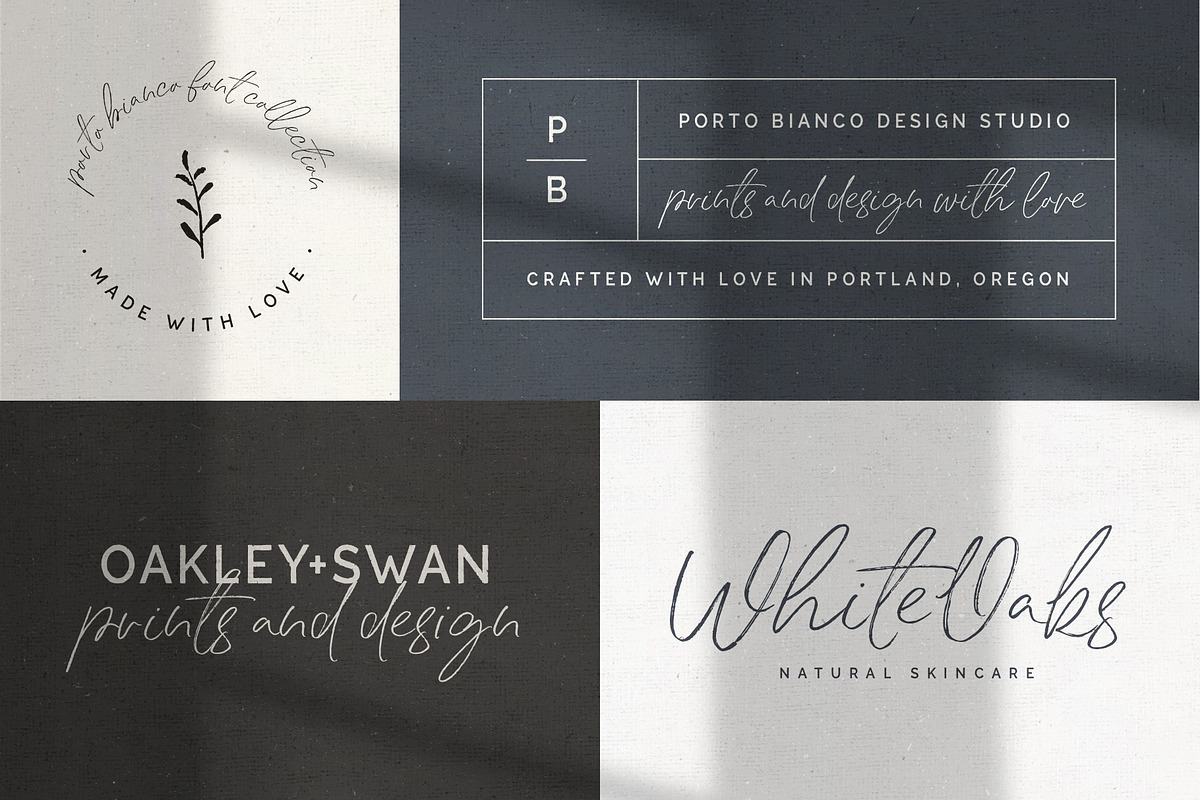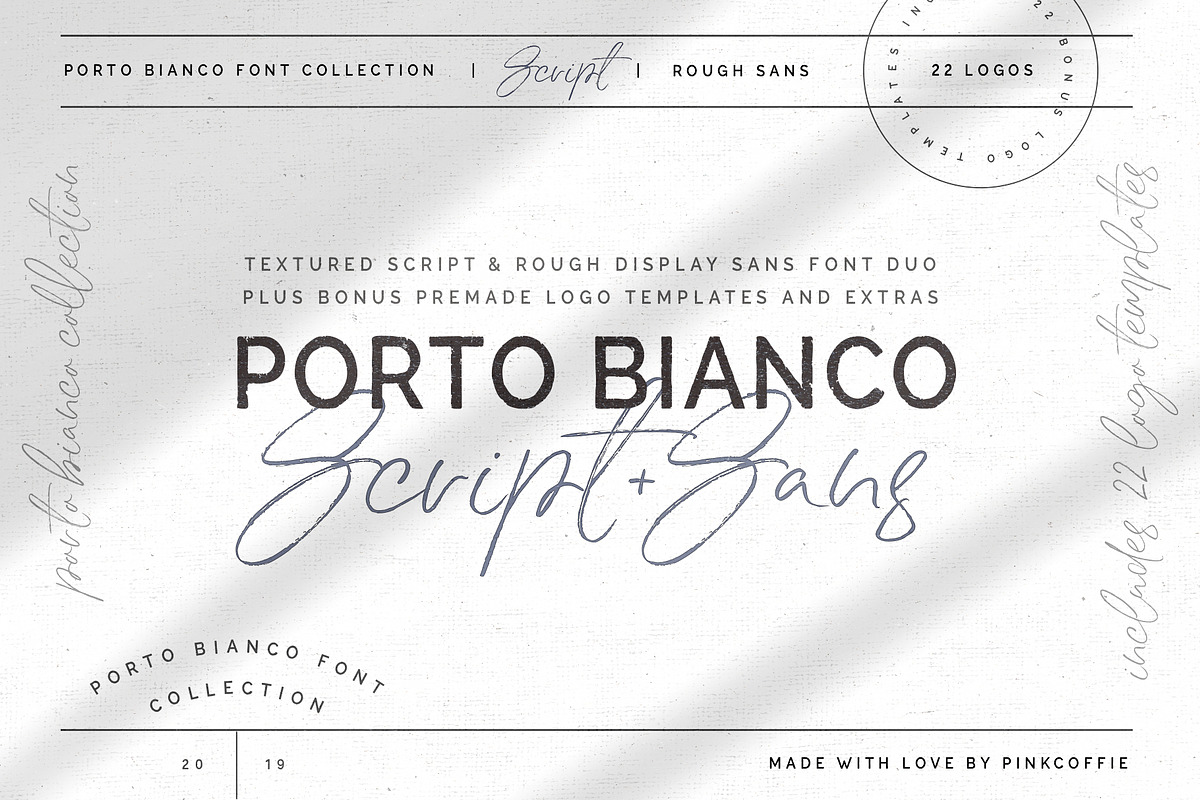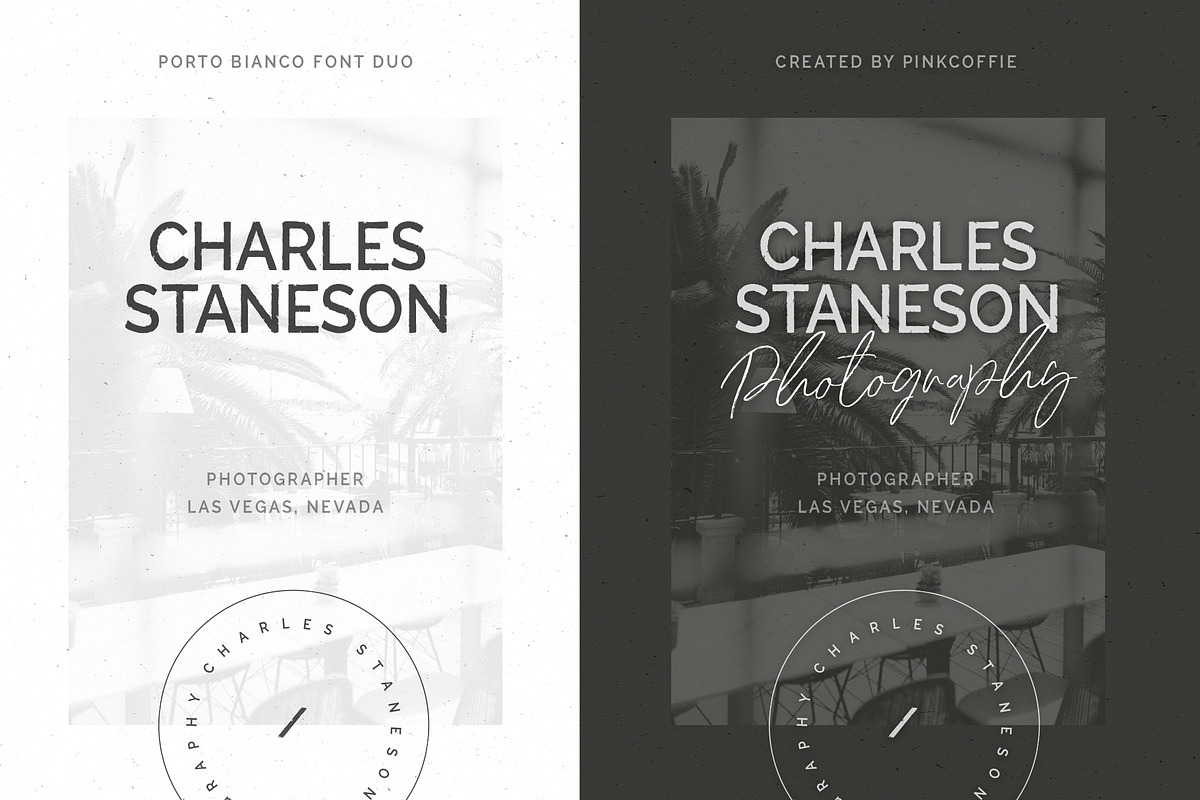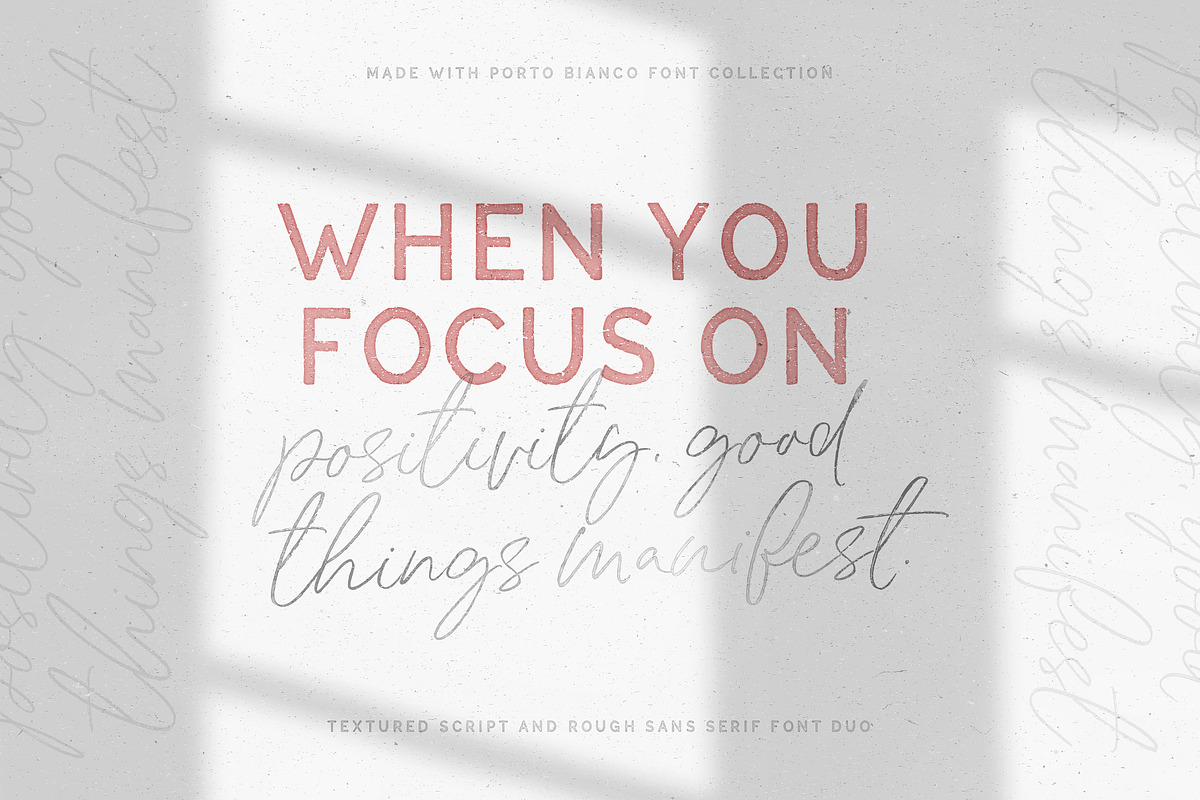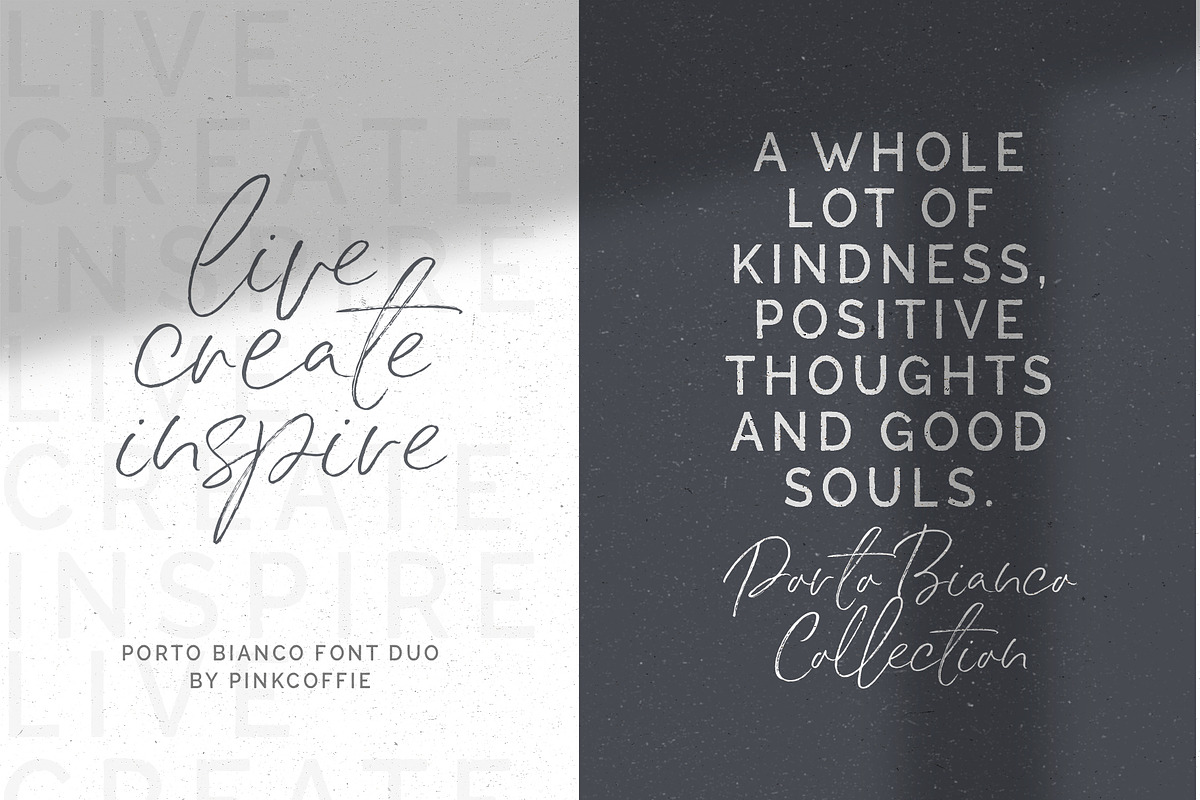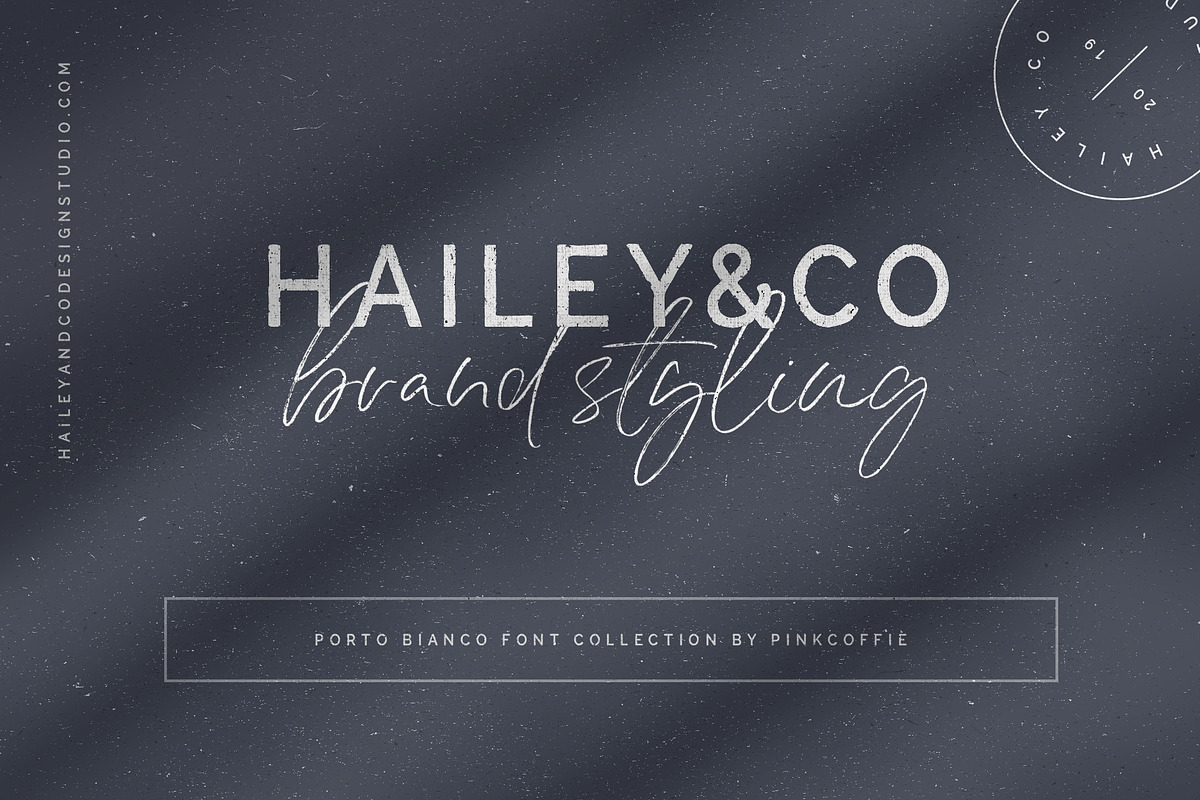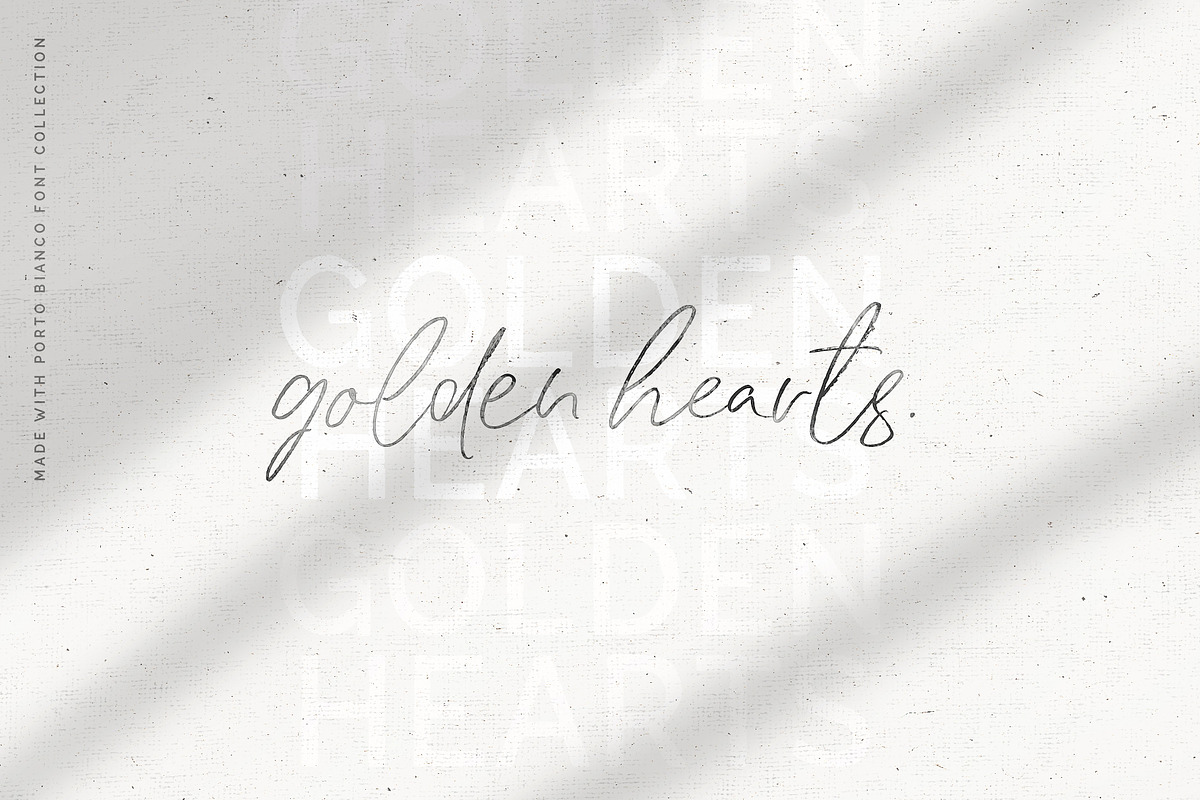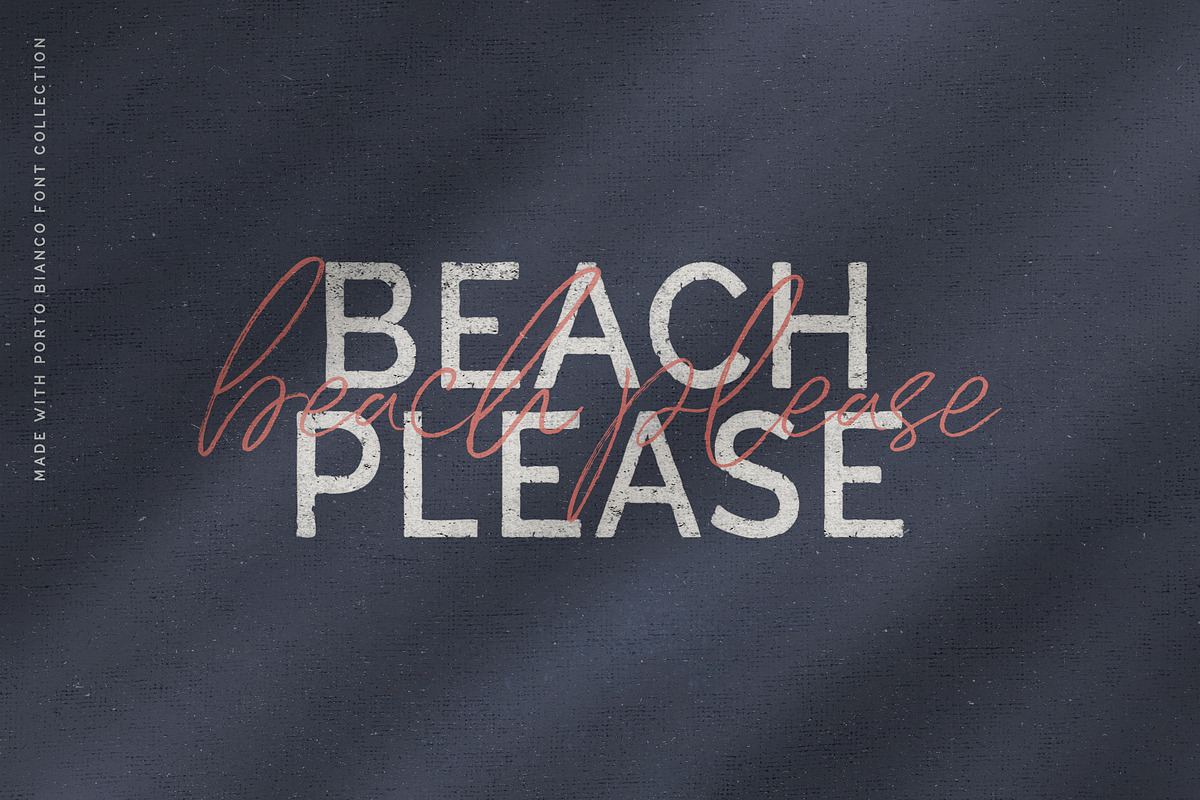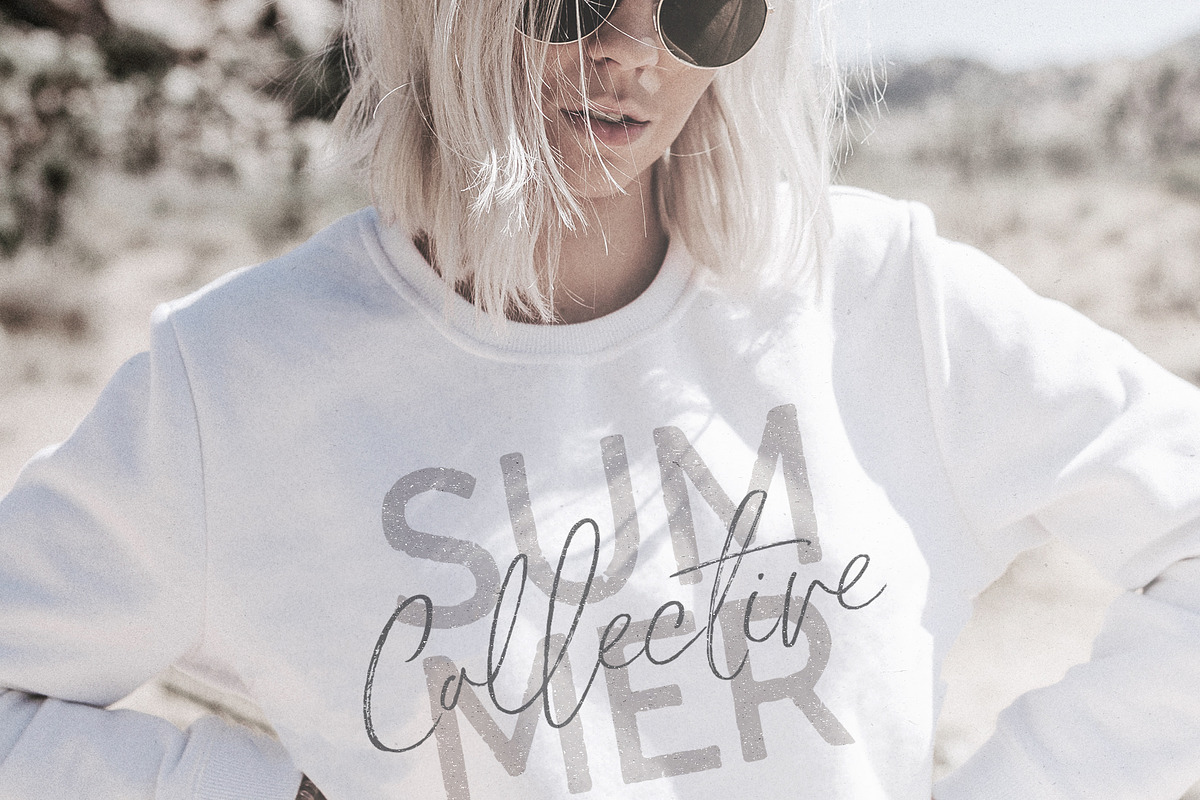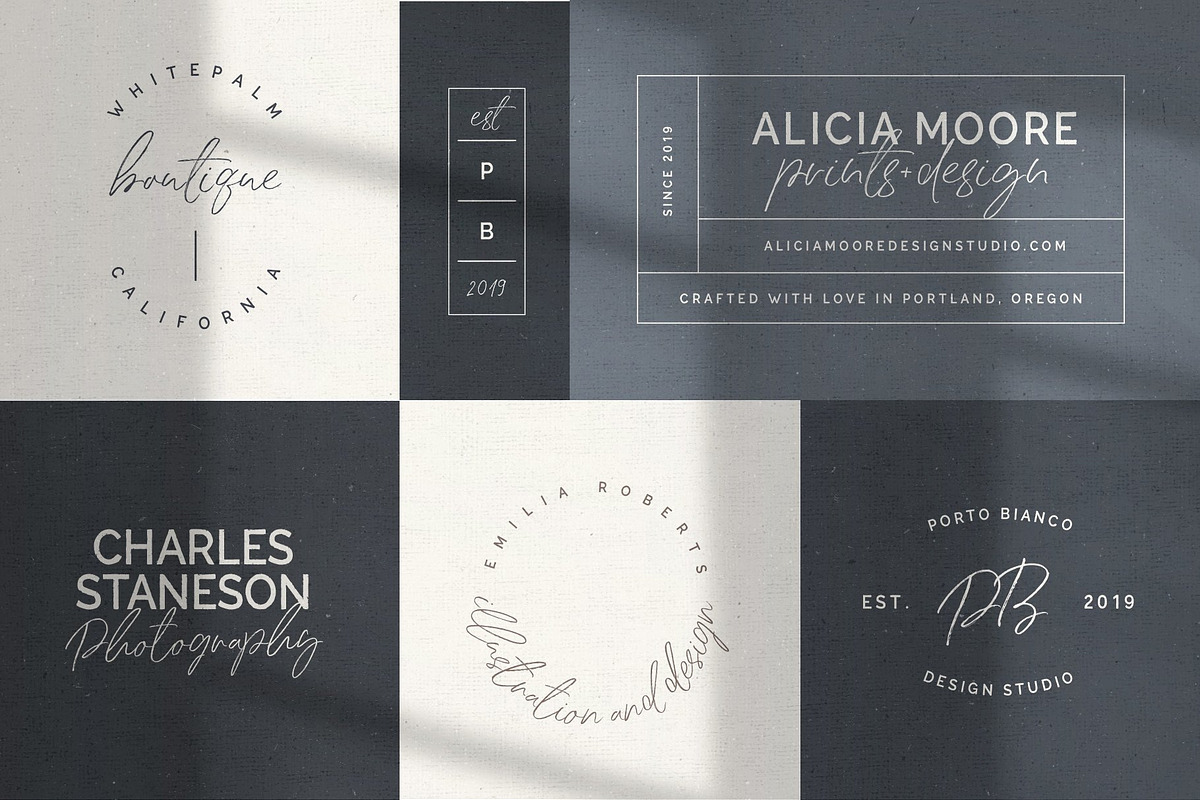
Porto Bianco | Script + Sans Serif
Say hello to Porto Bianco, a font and logo collection inspired by all kinds of gorgeous coastal blues, beautifully weathered white wood and vintage post stamps. ♥
The collection features a semi-rustic, rough edge sans serif, a chilled textured script with three lowercase stylistic letter sets and a full set of double-letter ligatures, plus 22 ready to use premade logo templates for Photoshop and Illustrator.
- PORTO BIANCO SCRIPT - a textured script font with three lowercase letter sets, a full set of lowercase double-letter ligatures and multilingual support. ( .otf and .ttf )
- PORTO BIANCO SANS SERIF - an all caps, rough edge sans font to pair with the script or use as stand-alone. Includes multilingual support. ( .otf and .ttf )